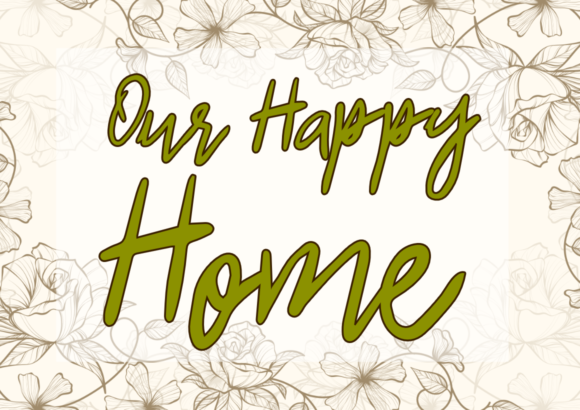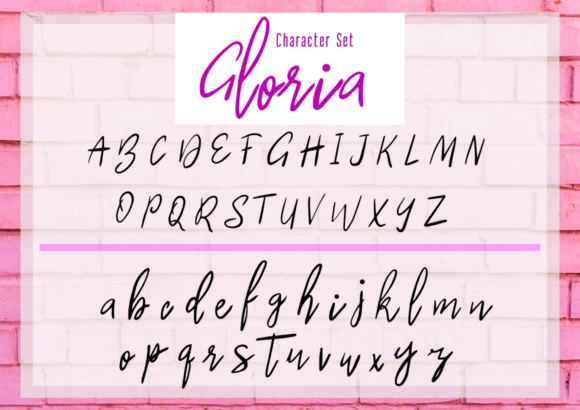
Introducing Gloria Font: The Sweet and Elegant Hand-Lettered Font for Your Creative Projects
Are you a designer or crafter looking for a font that exudes class, elegance, and modernity? Look no further than Gloria Font, a sweet and soft hand-lettered handwritten font that’s perfect for a variety of creative projects. With its unique blend of sophistication and playfulness, Gloria Font is sure to elevate your designs and make them stand out from the crowd.
What Makes Gloria Font Special?
Gloria Font is a hand-lettered font that’s been carefully crafted to provide a classy, elegant, and modern look. Its soft and sweet appearance makes it perfect for designs that require a touch of sophistication, such as logos, branding, invitations, stationery, wedding designs, and social media posts. The font’s unique hand-lettered style gives it a personal and human touch that’s sure to resonate with your audience.
Key Features of Gloria Font
- Hand-lettered style: Gloria Font is a hand-lettered font that’s been carefully crafted to provide a unique and personal touch to your designs.
- Soft and sweet appearance: The font’s soft and sweet appearance makes it perfect for designs that require a touch of sophistication and elegance.
- Classy and modern look: Gloria Font has a classy and modern look that’s sure to elevate your designs and make them stand out from the crowd.
- Versatile: The font is versatile and can be used for a variety of creative projects, including logos, branding, invitations, stationery, wedding designs, and social media posts.
Use Cases for Gloria Font
Gloria Font is a versatile font that can be used for a variety of creative projects. Here are some use cases to get you started:
- Logos and branding: Use Gloria Font to create a unique and memorable logo for your brand. The font’s classy and modern look makes it perfect for businesses that want to establish a strong brand identity.
- Invitations and stationery: Gloria Font is perfect for creating beautiful invitations, stationery, and greeting cards. The font’s soft and sweet appearance makes it ideal for designs that require a touch of elegance and sophistication.
- Wedding designs: Use Gloria Font to create stunning wedding designs, including wedding invitations, wedding stationery, and wedding decorations. The font’s classy and elegant look makes it perfect for wedding designs.
- Social media posts: Gloria Font can be used to create eye-catching social media posts that stand out from the crowd. The font’s modern and trendy look makes it perfect for businesses that want to establish a strong online presence.
Why Choose Gloria Font?
There are many fonts available online, but Gloria Font stands out from the rest due to its unique features and benefits. Here are some reasons why you should choose Gloria Font for your creative projects:
- Unique and personal touch: Gloria Font has a unique and personal touch that’s sure to resonate with your audience.
- Elegant and sophisticated: The font’s elegant and sophisticated look makes it perfect for designs that require a touch of class and refinement.
- Versatile: Gloria Font is versatile and can be used for a variety of creative projects.
Gloria Font is a sweet and soft hand-lettered handwritten font that’s perfect for designers and crafters who want to add a touch of elegance and sophistication to their designs. With its unique blend of class, elegance, and modernity, Gloria Font is sure to elevate your designs and make them stand out from the crowd. Whether you’re creating logos, branding, invitations, stationery, wedding designs, or social media posts, Gloria Font is the perfect choice.